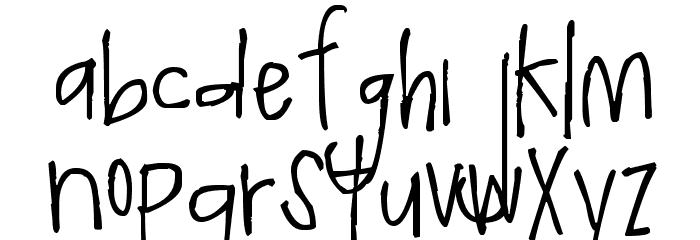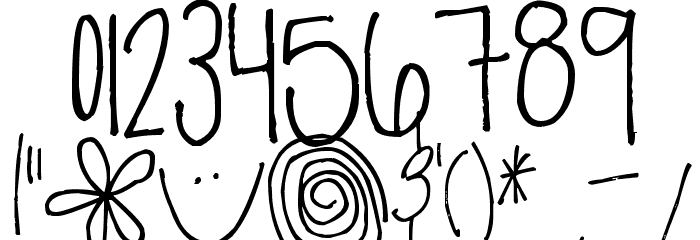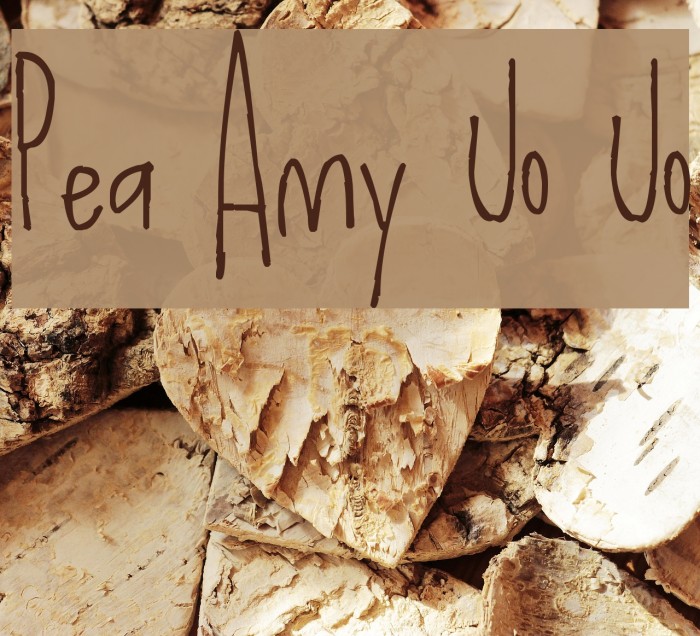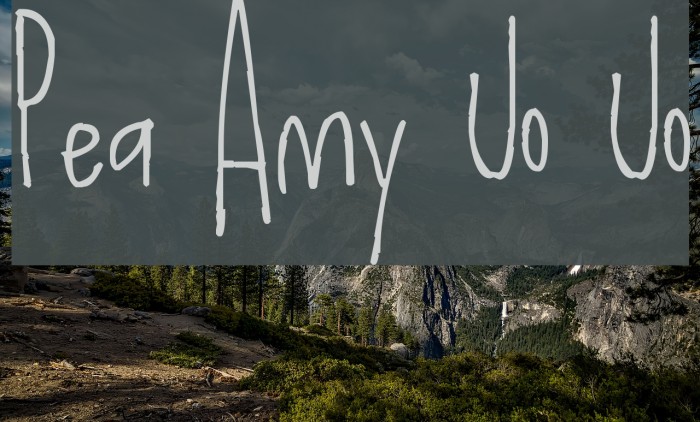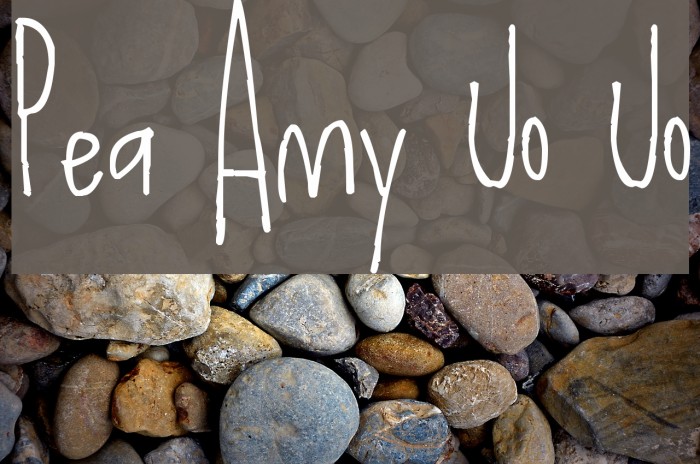
Pea Amy Jo Jo Font
This font exudes a playful and whimsical charm, characterized by its hand-drawn, uneven strokes that give it a distinctly personal touch. The letters are tall and narrow, with a casual, almost childlike appearance. The uppercase letters are particularly elongated, while the lowercase letters maintain a more consistent height. The numbers and special characters follow the same playful style, adding to the font's overall quirky aesthetic. The irregularity in line thickness and the slight slant in some characters contribute to its informal and friendly vibe, making it ideal for projects that require a personal, approachable feel.
A playful, hand-drawn font with tall, narrow letters and a whimsical charm.
- Proposed Projects: Ideal for children's books, greeting cards, playful branding, and informal invitations.
- Overall Style: Playful
- Use Case: Headlines, Informal text, Creative projects